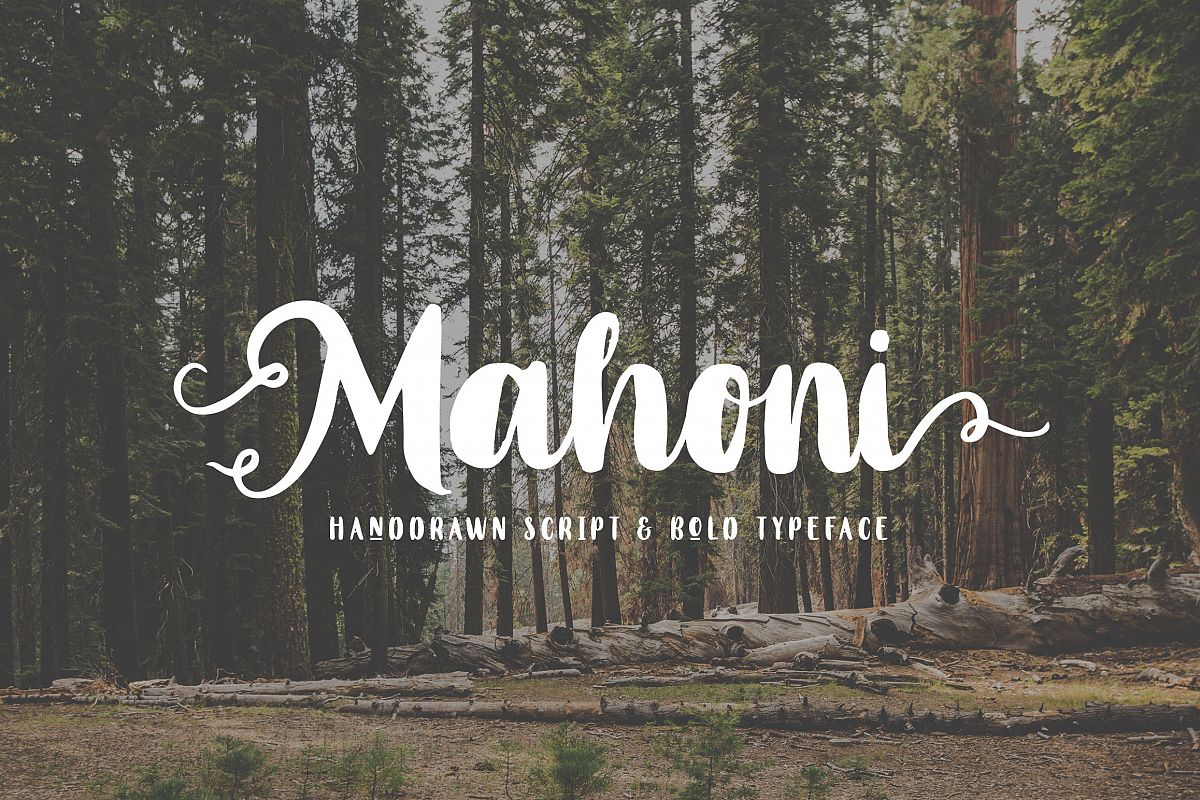
Mahoni - Script & Bold font
**Mahoni** is a bold script font, they have a verry handwritten character inspired by modern calligraphy style. Mahoni come with one font style, but if you're use the uppercase letter this font will form a sans character and will look like 2 different fonts. Suitable and applicable to create typography design, christmas card, branding, logos, product packaging, invitation, qoutes, t-shirt, label poster etc.
**Feature**
- Punctuation and Number
- Multilingual Language
- Alternate Character & Ligature
- Stylishtic Character ( ss01 & ss02 )
- Extras Ornament ( eps10 )